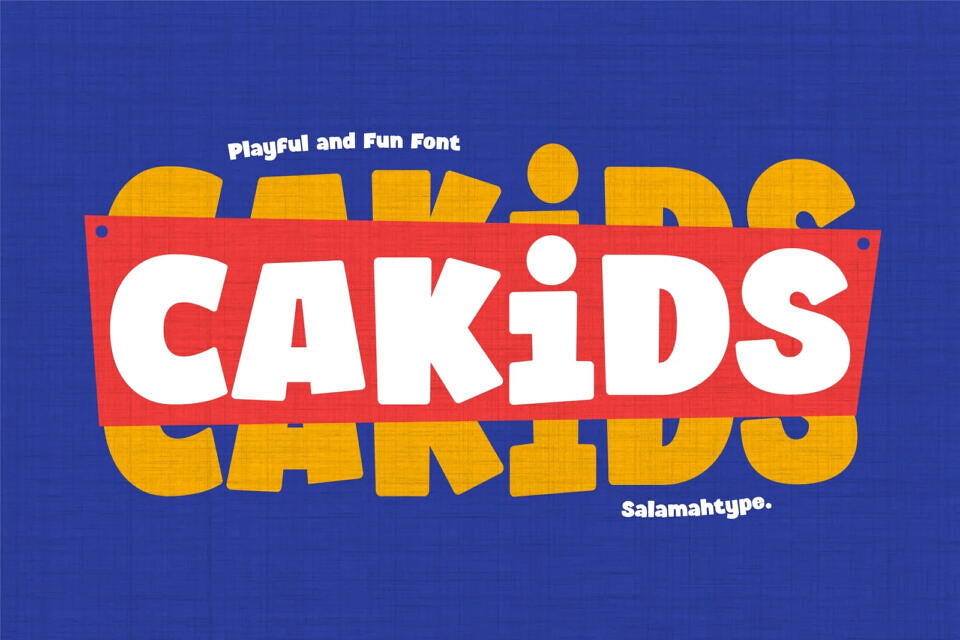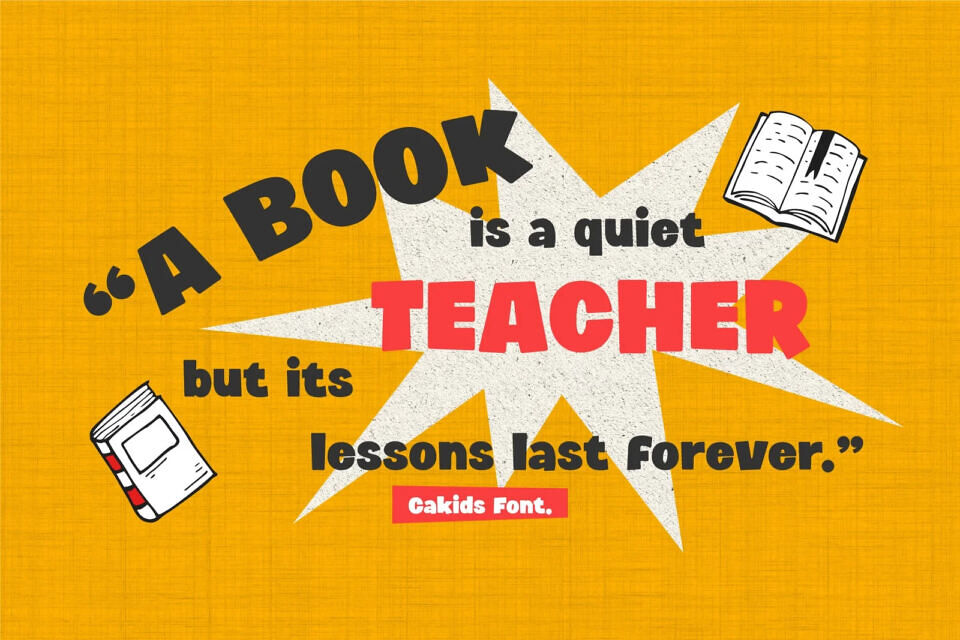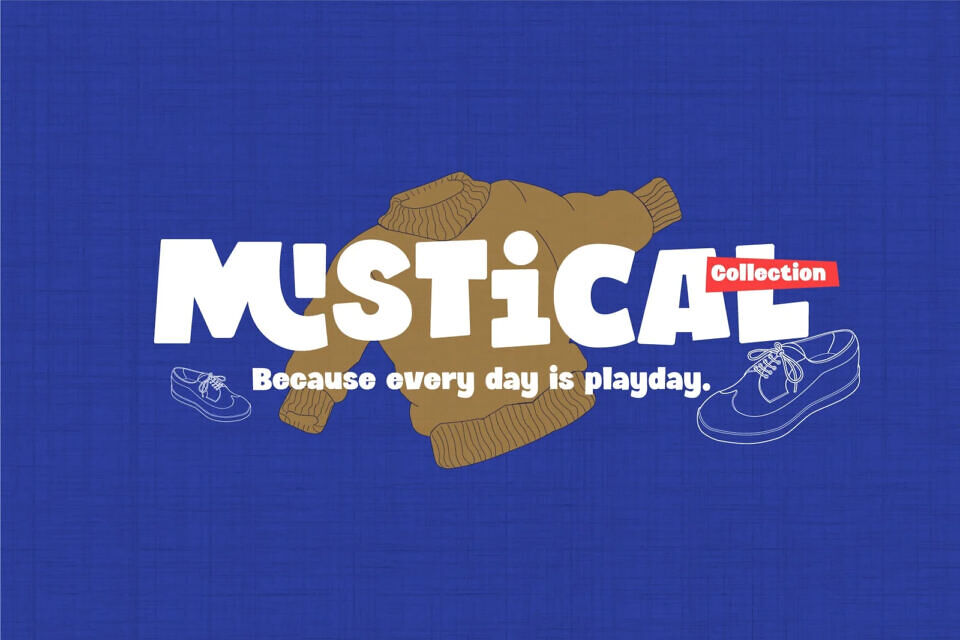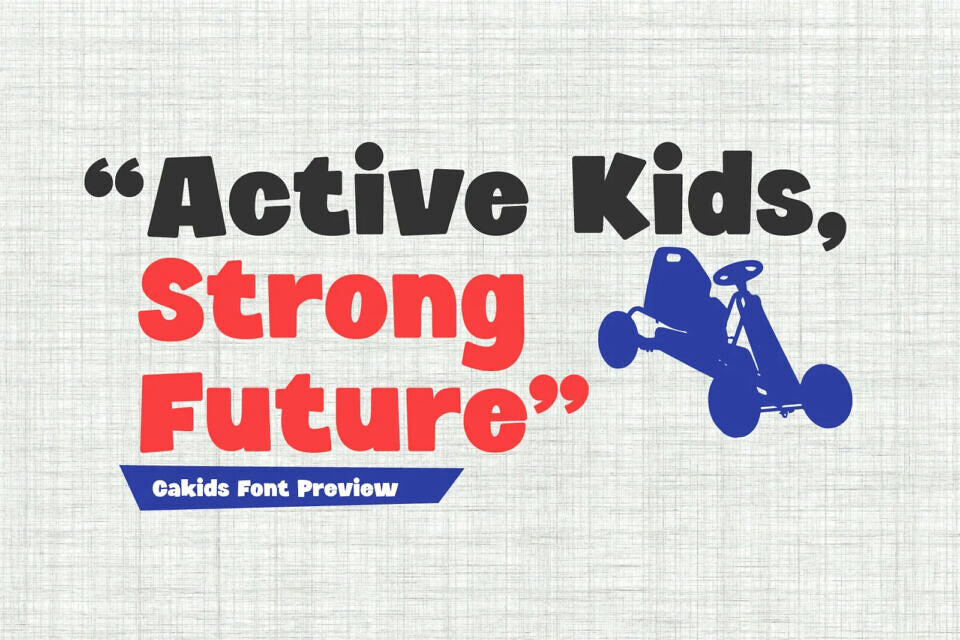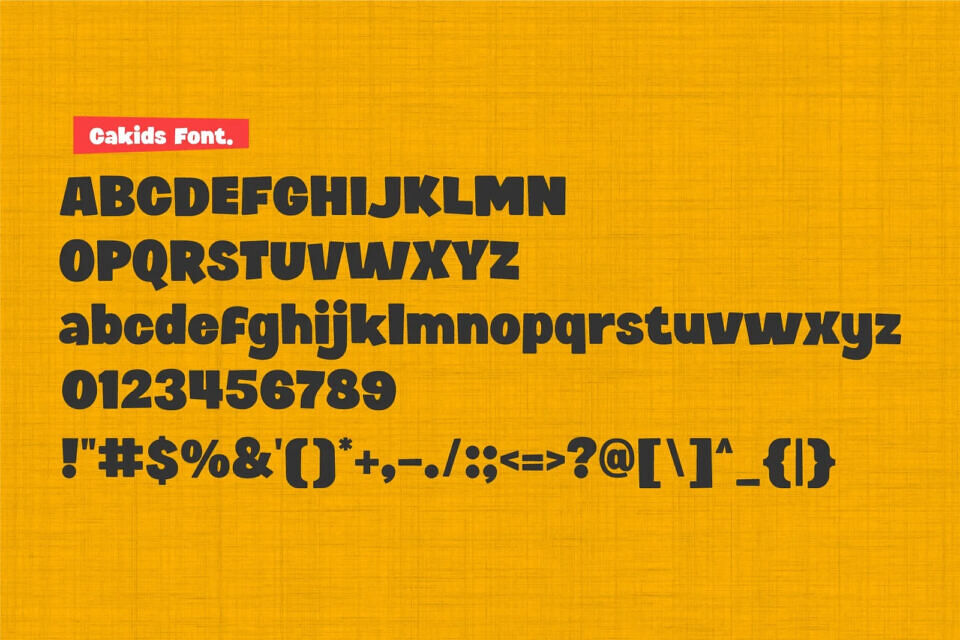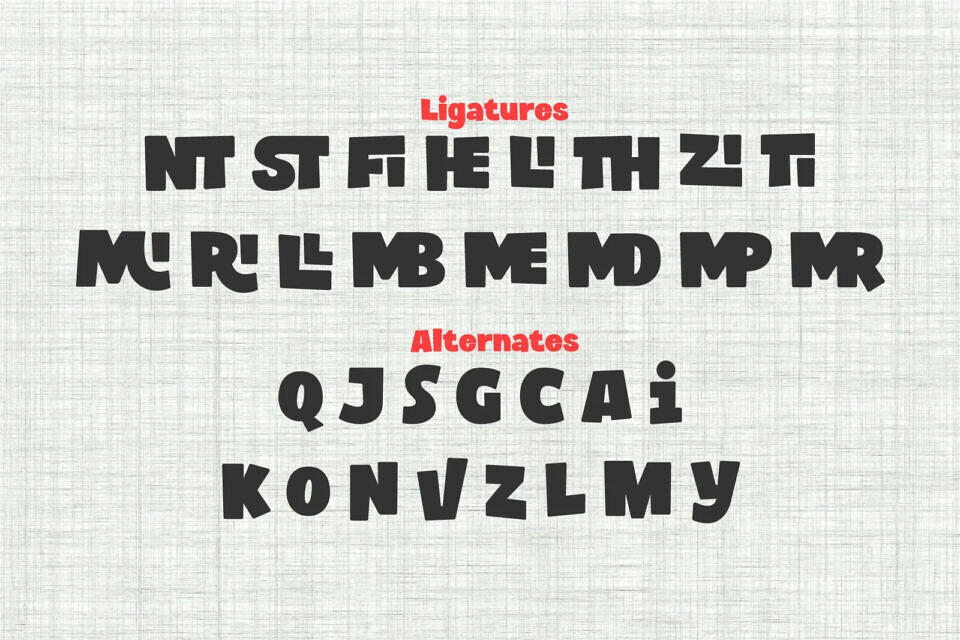
Cakids Font
Cakids is a cheerful, playful kids font designed with bold, rounded, and friendly letterforms. It brings a fun, energetic, and creative vibe to any children-themed project.
With its expressive shapes and lively curves, Cakids also works perfectly as a comic-style font, giving your designs a joyful cartoon feel. Whether for kids branding or comic-style graphics, Cakids delivers a bright, imaginative, and happy personality.